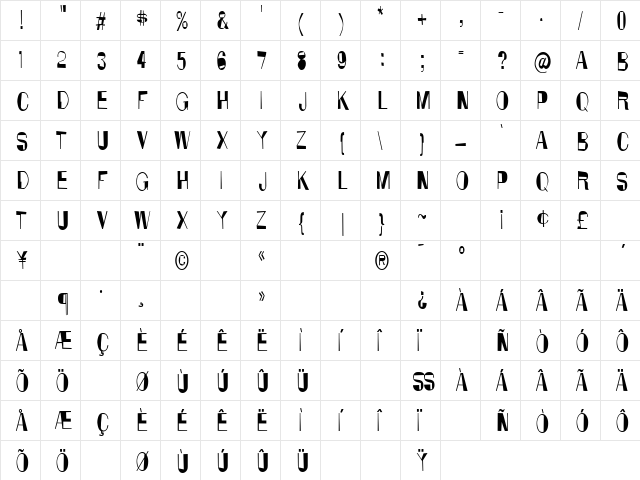
Anarko Condensed
Design Context for Anarko Typeface
Anarko is a composed and adaptable typeface that performs quietly and consistently across a wide range of design contexts. The condensed width makes it efficient for tight spaces without sacrificing legibility.